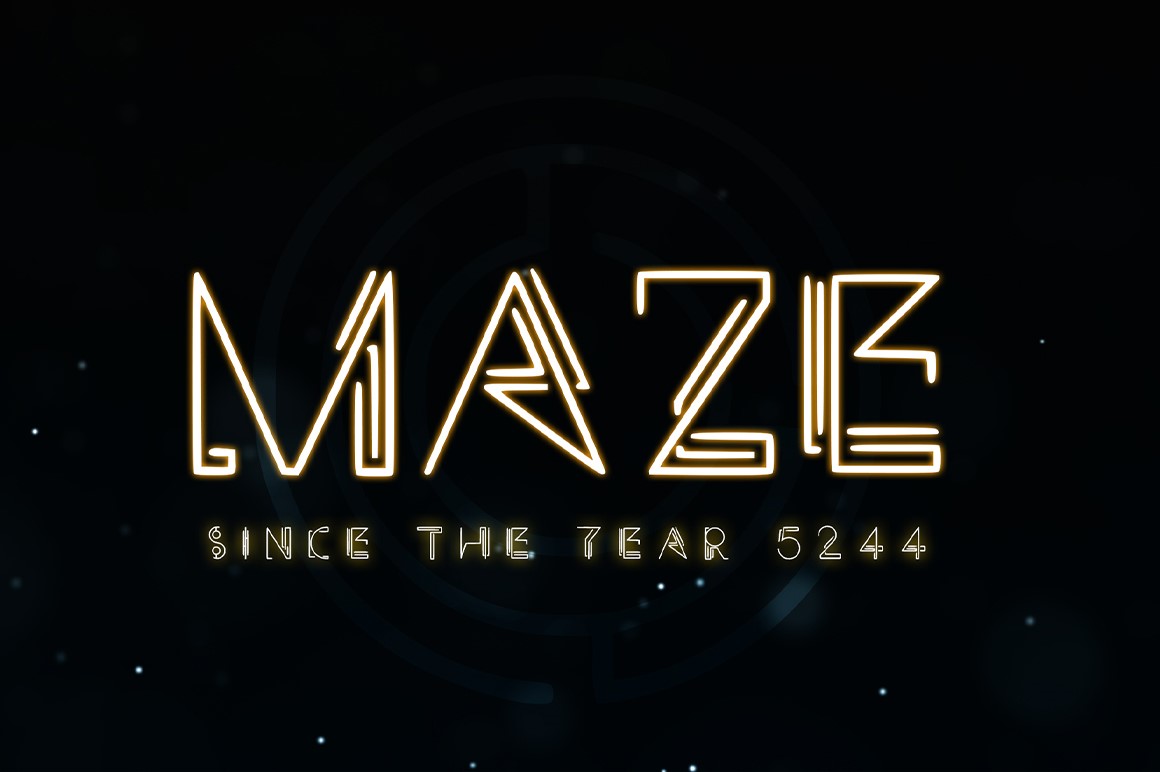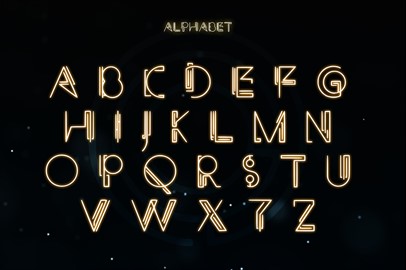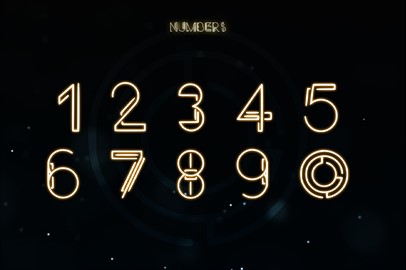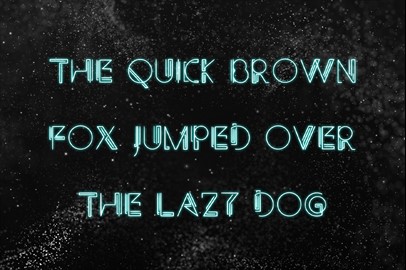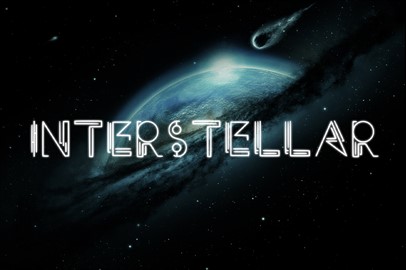
MAZE - A Technical Typeface
Maze
is a unique and creative design that has been passionately handcrafted to give you a technical typeface. Inspired by science, this font is perfect for your next project, especially if you want to give a futuristic feel to it.